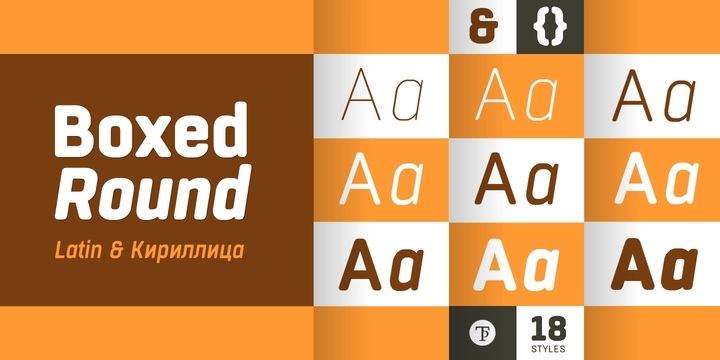
Boxed Round Font
Boxed Round Font is perfectly suited for children's educational materials, friendly app interfaces, playful brand identities, toy packaging design, casual gaming graphics, family-oriented marketing, youth product branding, kid-friendly signage, and approachable corporate communications.
What makes Boxed Round Font so exciting is its perfect balance of structure and friendliness that creates an instantly approachable and trustworthy appearance while maintaining professional reliability through every carefully rounded letterform. This delightful typeface combines the clarity of geometric design with the warmth of soft, rounded edges, creating typography that feels both organized and welcoming. The font's distinctive boxed structure with gentle curves creates an atmosphere of safety and accessibility that resonates with families and audiences seeking comfortable, non-threatening design solutions. Boxed Round Font stands out through its ability to convey friendliness, reliability, and approachable professionalism, making it perfect for projects that need to establish trust with diverse audiences while maintaining clear communication and visual accessibility for all age groups.
The Boxed Round Font family includes Light, Regular, Medium, and Bold weights, each maintaining the font's distinctive friendly character while providing design flexibility for various approachable applications. The family also features playful alternates and rounded variations that enhance the font's welcoming appeal and provide comprehensive solutions for family-friendly design projects.
When you choose Boxed Round Font Free Download, you're selecting a typeface that brings authentic friendliness and reliable accessibility to your creative projects. This font excels in creating designs that need to convey approachability, safety, and inclusive communication. Its rounded geometric appearance makes it particularly effective for educational organizations, family brands, and community-focused projects that want to establish trust while maintaining clear, accessible communication.
The technical craftsmanship of Boxed Round Font includes a comprehensive character set with uppercase and lowercase letters, numerals, punctuation marks, and friendly symbols that maintain the font's approachable character. The font has been carefully optimized for both digital and print applications, ensuring consistent performance while preserving the rounded details that give it its distinctive welcoming character and accessible appeal.
Whether you're designing educational materials, creating family-friendly branding, developing community-focused communications, or crafting designs that require approachable reliability and inclusive accessibility, Boxed Round Font delivers the perfect combination of friendly authenticity and professional functionality that makes your projects welcoming and trustworthy for audiences seeking comfortable, accessible design solutions.